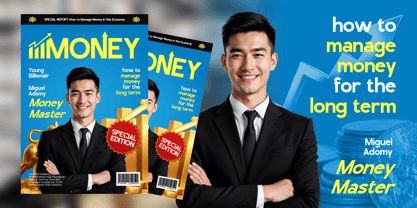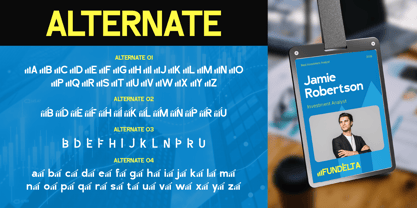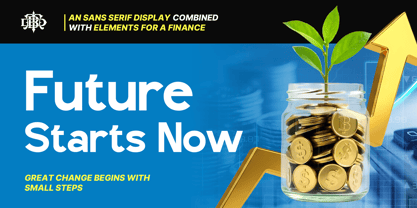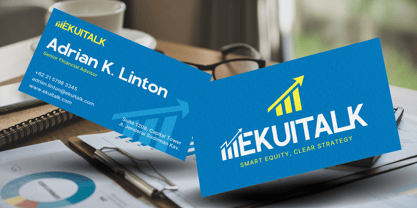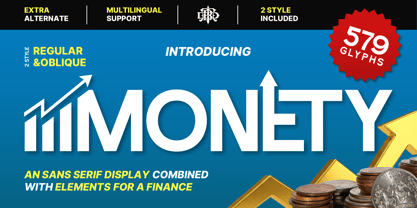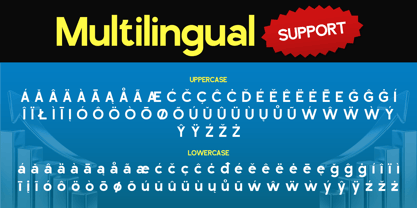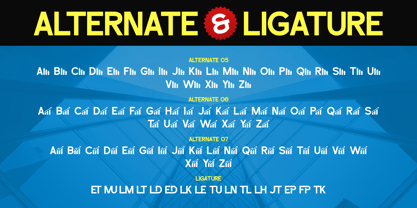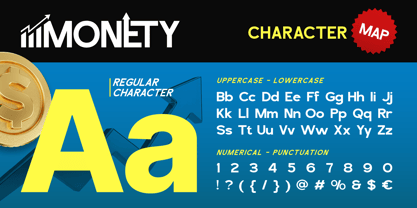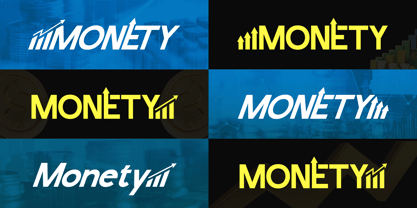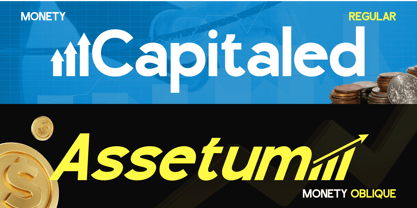
Monety
by Burntilldead
The Monety Font Family was designed by Eric Kurniawan and published by Burntilldead. Monety contains 2 styles and family package options. More about this family
Imagine a font that doesn't just talk about success but actually visualizes it. Monety is a modern Sans Serif display typeface designed specifically for the world of finance, fintech, and high-stakes branding. With over 579 glyphs and a unique "growth element" design, featuring integrated bar charts and upward arrows, this font captures the spirit of a rising market. If you're creating branding for fintech startups, investment platforms, business presentations, or promotional campaigns, Monety helps your message stand out with clarity and authority. This font comes in 2 styles: Regular and Oblique, giving you flexibility to create both stable and dynamic compositions.  Perfect for: Finance & fintech branding, Business presentations, Investment & crypto visuals, Corporate identity, Posters & advertising, Social media content
Designers: Eric Kurniawan
Foundry: Burntilldead